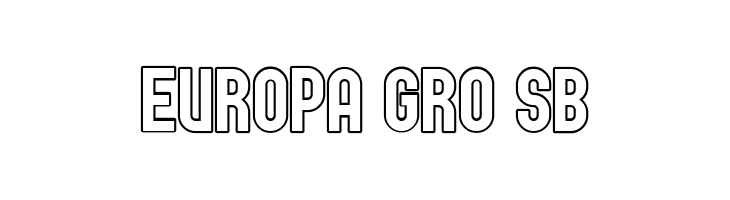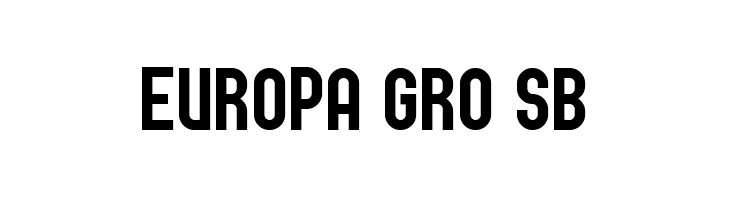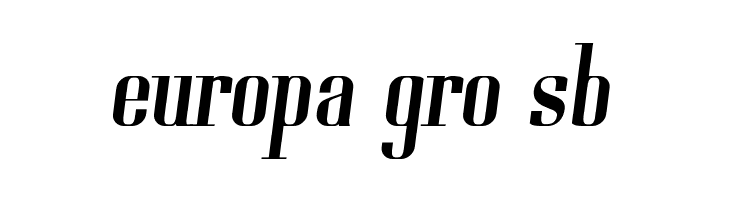
A bold, vintage-inspired serif font with thick strokes and a compact design.
A vintage serif font with bold, elegant characters and unique flourishes.
A bold, high-contrast serif font with strong vertical strokes and elegant serifs.
A bold serif font with a shadow effect, offering a vintage and decorative style.
A bold serif font with a classic yet modern style, featuring strong serifs and a semi-bold weight.
An elegant script font with flowing, interconnected letters and decorative flourishes.
An elegant, flowing script font with a classic, handwritten style.
An elegant, cursive script font with flowing, delicate strokes.
A traditional German cursive script with elegant loops and historical charm.
A utilitarian symbol set based on German traffic and road signage.
A bold, 3D geometric font with a modern and dynamic appearance.
A bold, dynamic font with sharp, angular lines and a modern flair.
A bold, italicized font with a dynamic, hand-drawn style.
A dynamic, italic font with sharp, angular strokes and high contrast.
A sharp, angular, and artistic font with a calligraphic flair.
A bold, dynamic font with rounded, smooth curves and a slight slant.
A bold, outlined font with a modern yet retro aesthetic, ideal for impactful designs.
A playful, handwritten font with smooth curves and a whimsical style.
A futuristic, geometric font with sharp angles and clean lines.
A bold, futuristic font with geometric and angular design elements.
A bold, rounded font with a modern and playful style.